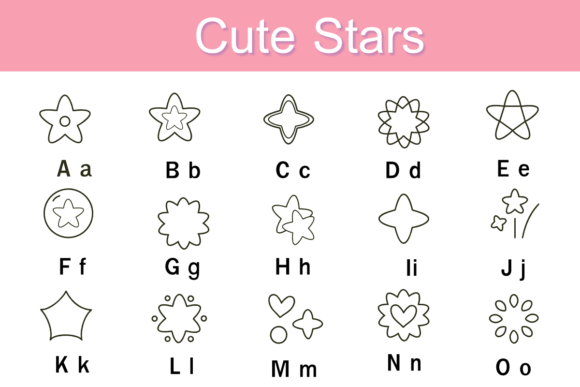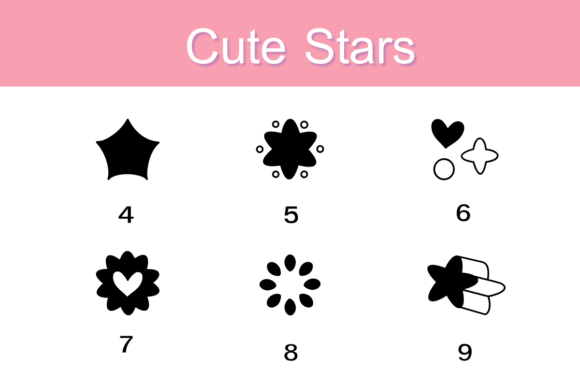
Stars Font
Stars is a fun dingbats font that brings a galaxy of variety to your design. Packed with different star symbols, this font adds a celestial touch to your projects. Whether you’re looking to accentuate text or create cosmic patterns, Stars is your go-to choice. With a range of star designs, this font allows you to easily sprinkle stardust across your creations, adding a playful and celestial flair. Explore the stellar possibilities of Stars for a touch of whimsy in your designs.